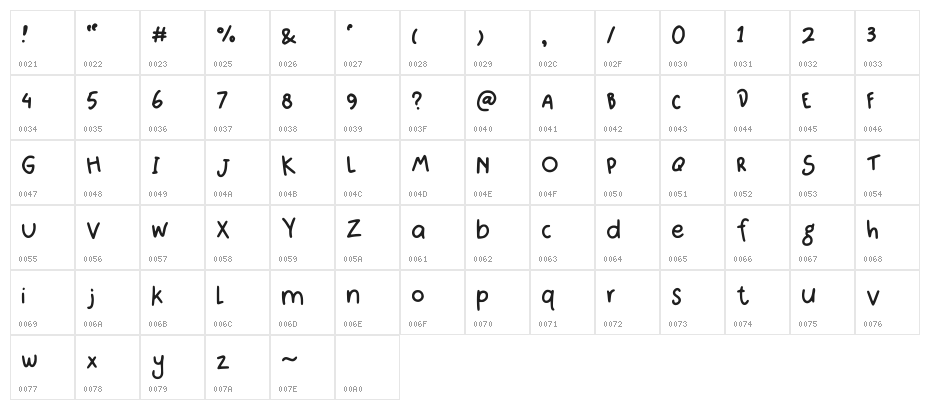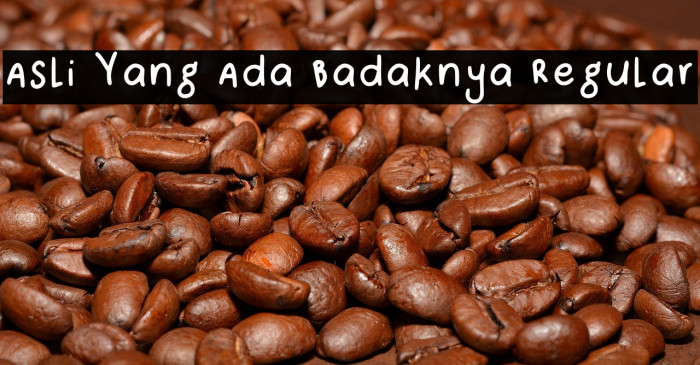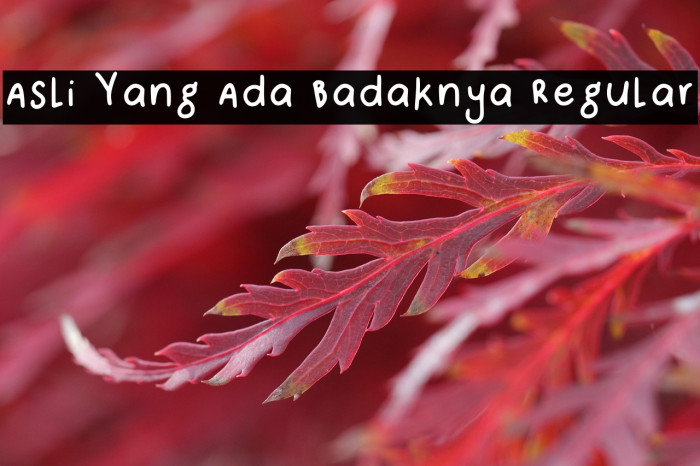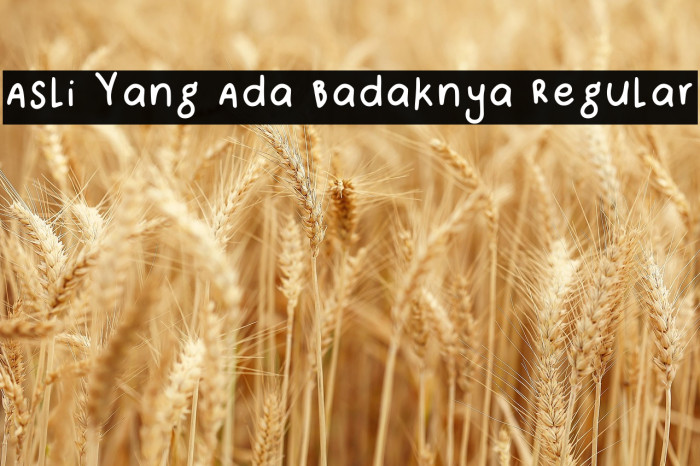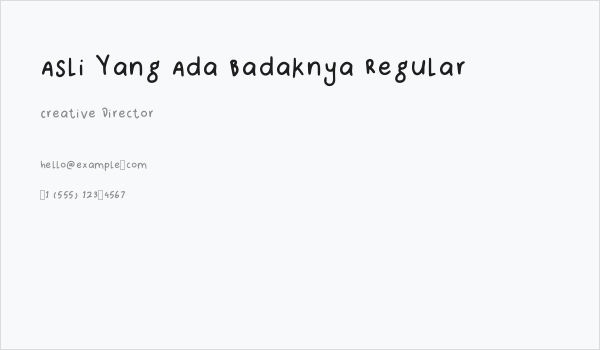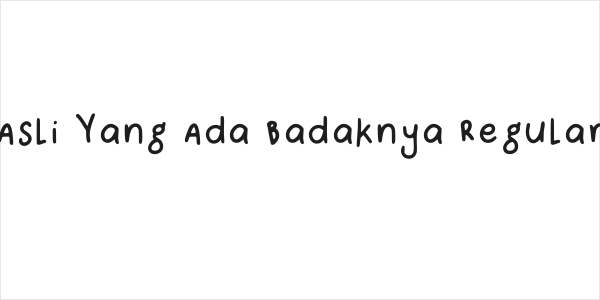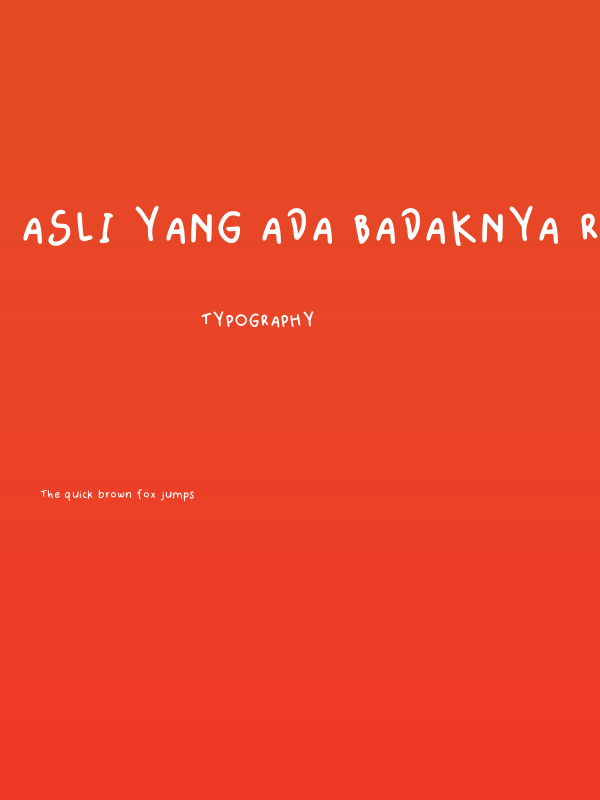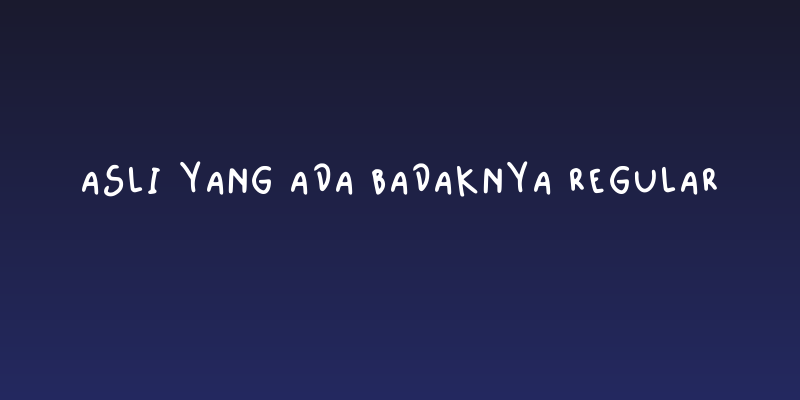
Asli Yang Ada Badaknya Regular Font
Asli Yang Ada Badaknya Regular Description
A playful, handwritten font with a casual and friendly appearance, featuring rounded edges and irregular strokes.
| Use Case | Headlines, Informal text, Branding |
| Proposed Projects | Children's books, casual invitations, playful branding. |